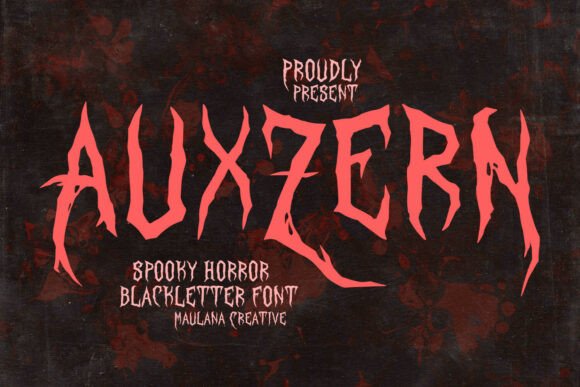
Unleash the Darkness: Discover the Auxzern Font
I’ll never forget the project that led me to Auxzern. I was working on a Halloween event branding campaign, and my client wanted a font that would make their posters and flyers look like they were plucked straight from a Tim Burton film. I scoured the internet, tried out countless fonts, but nothing seemed to capture the right amount of spooky charm. That was until I stumbled upon Auxzern – a spine-chilling blackletter font that instantly brought my client’s terrifying visions to life.
The Auxzern Advantage
Auxzern is more than just a font – it’s an experience. With its sharp, jagged edges and distorted, aggressive silhouette, it captures the raw energy of classic horror cinema and dark metal aesthetics. This typeface reimagines traditional gothic calligraphy with jagged, thorn-like strokes and elongated, dripping terminals that feel like they were carved by hand.
What I Love About Auxzern
- ✨ Perfect for high-contrast designs: Auxzern looks amazing when paired with blood-red or neon-green accents on a distressed black background.
- ✅ Authentic grit: This font brings a touch of authentic grit to haunted house signage, heavy metal merch, and gothic stationery.
- 🔥 Aggressive verticality: Auxzern’s sharp points and vertical strokes make it stand out as a display header.
- 💀 Perfect for horror and dark fantasy: This font is ideal for Halloween event branding, horror movie titles, and dark fantasy book covers.
While Auxzern is an incredible font, there are a few things to keep in mind:
- ⚠️ Legibility at small sizes: Due to its intricate design, Auxzern can be difficult to read at small font sizes.
- 🤔 Limited use cases: This font is best suited for display headers and titles, rather than body text.
The Designer Inspiration Behind Auxzern
Auxzern was inspired by the dark, gothic aesthetic of classic horror cinema and heavy metal music. The designer, who wishes to remain anonymous, drew inspiration from ancient tomes, haunted mansions, and the works of Edgar Allan Poe. The result is a font that’s both terrifying and beautiful.
Q: What type of projects is Auxzern best suited for?
A: Auxzern is perfect for Halloween event branding, horror movie titles, dark fantasy book covers, and any project that requires a touch of gothic elegance.
Q: Is Auxzern available in different styles or variations?
A: Currently, Auxzern is available in a single style, but the designer may release additional variations in the future.